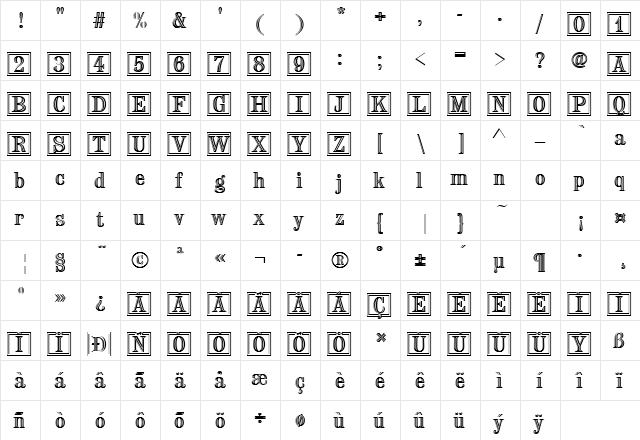
Chisel Becker Ini Regular
Design Context for Chisel Becker Ini Typeface
Chisel Becker Ini takes a measured approach to typography — its balanced proportions and neutral character make it a reliable workhorse for both digital and print work.